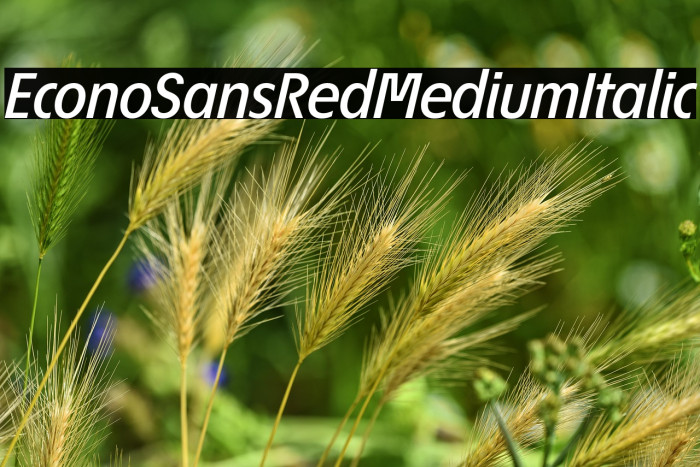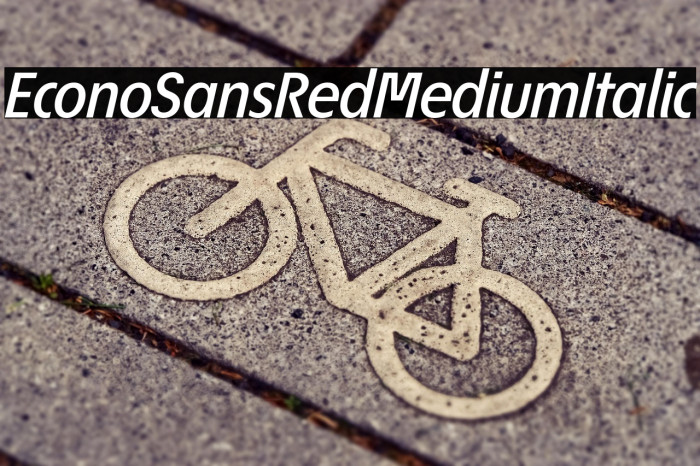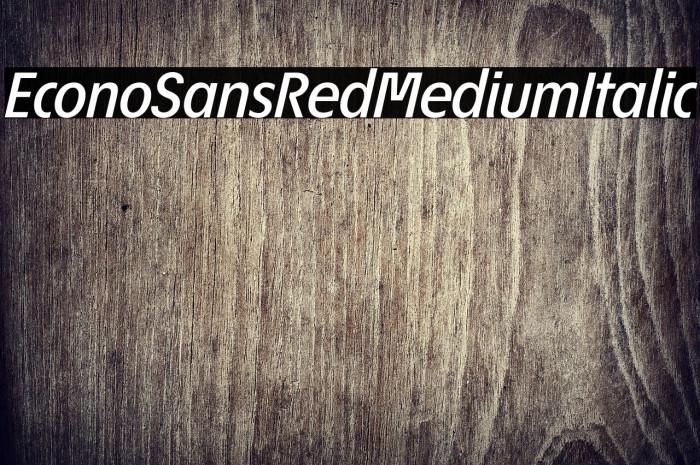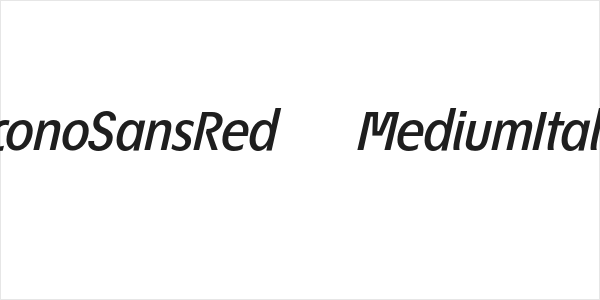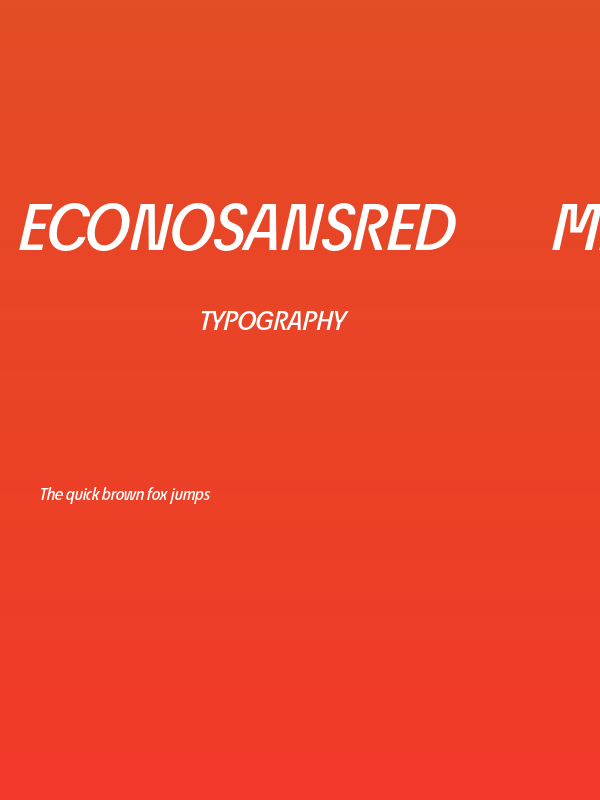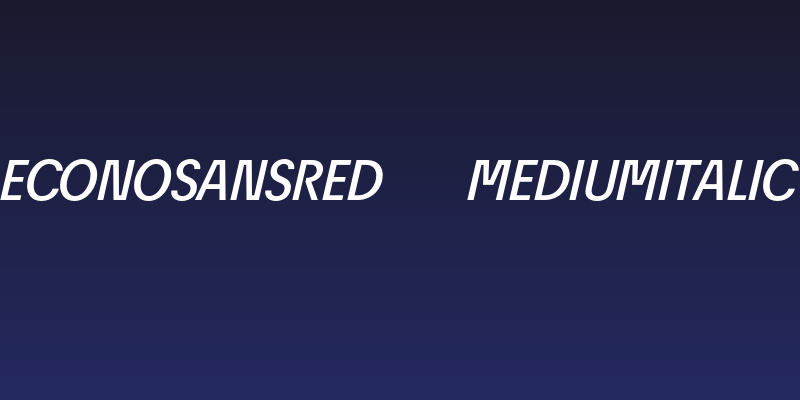
EconoSansRed-66MediumItalic Font
EconoSansRed-66MediumItalic Description
This font features a sleek and modern sans-serif design with a noticeable italic slant, giving it a dynamic and forward-moving appearance. The characters are clean and well-defined, with consistent stroke widths that provide a uniform look across all letters. The uppercase and lowercase letters maintain a harmonious balance, while the overall style is minimalistic yet impactful. The font's medium weight ensures readability while adding a touch of sophistication. Its design is versatile, making it suitable for various applications where a contemporary and professional look is desired.